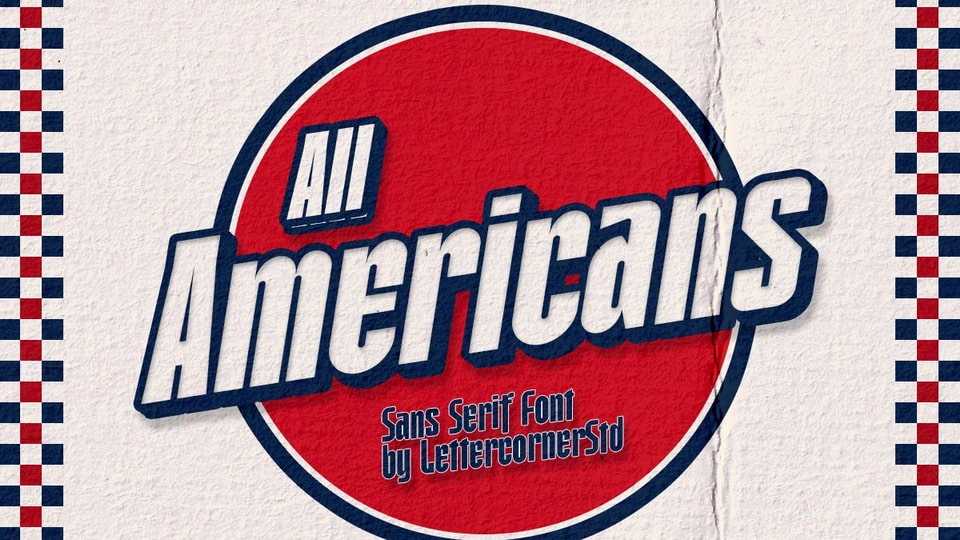
Download All American font, a retro display typeface, perfect for creating retro, classic, and vintage designs inspired by the iconic styles of the 70s, 80s, and 90s. Whether you’re working on a poster, magazine layout, or logo, All American font adds a touch of modern elegance to any creative project.
Designer: Lettercorner Studio